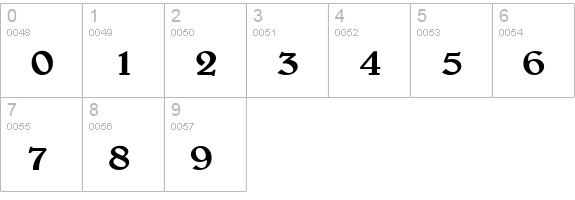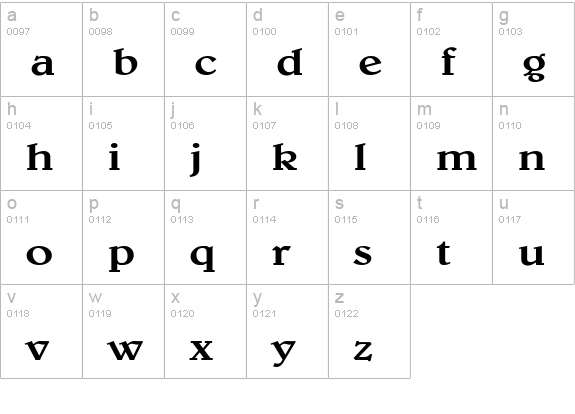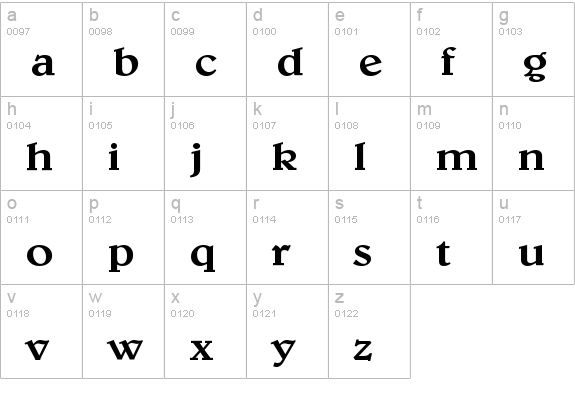
Blew Wide Normal is the standard, neutral, extended-width variant in the Blew typeface family \xE2\x80\x94 well suited to general body text, paragraphs, and standard typographic work.
Blew Wide Normal font is a versatile and modern typeface that is perfect for a wide range of design projects. With its clean lines and bold presence, this font is sure to make a statement. The sleek and professional look of Blew Wide Normal font is ideal for logos, branding, headlines, and more. And the best part? Blew Wide Normal font is completely free to download at FontsMarket.com. Whether you're a designer looking to add a fresh new font to your collection or a business owner in need of eye-catching typography for your marketing materials, Blew Wide Normal font is the perfect choice. Download it today and elevate your designs with this stunning typeface.